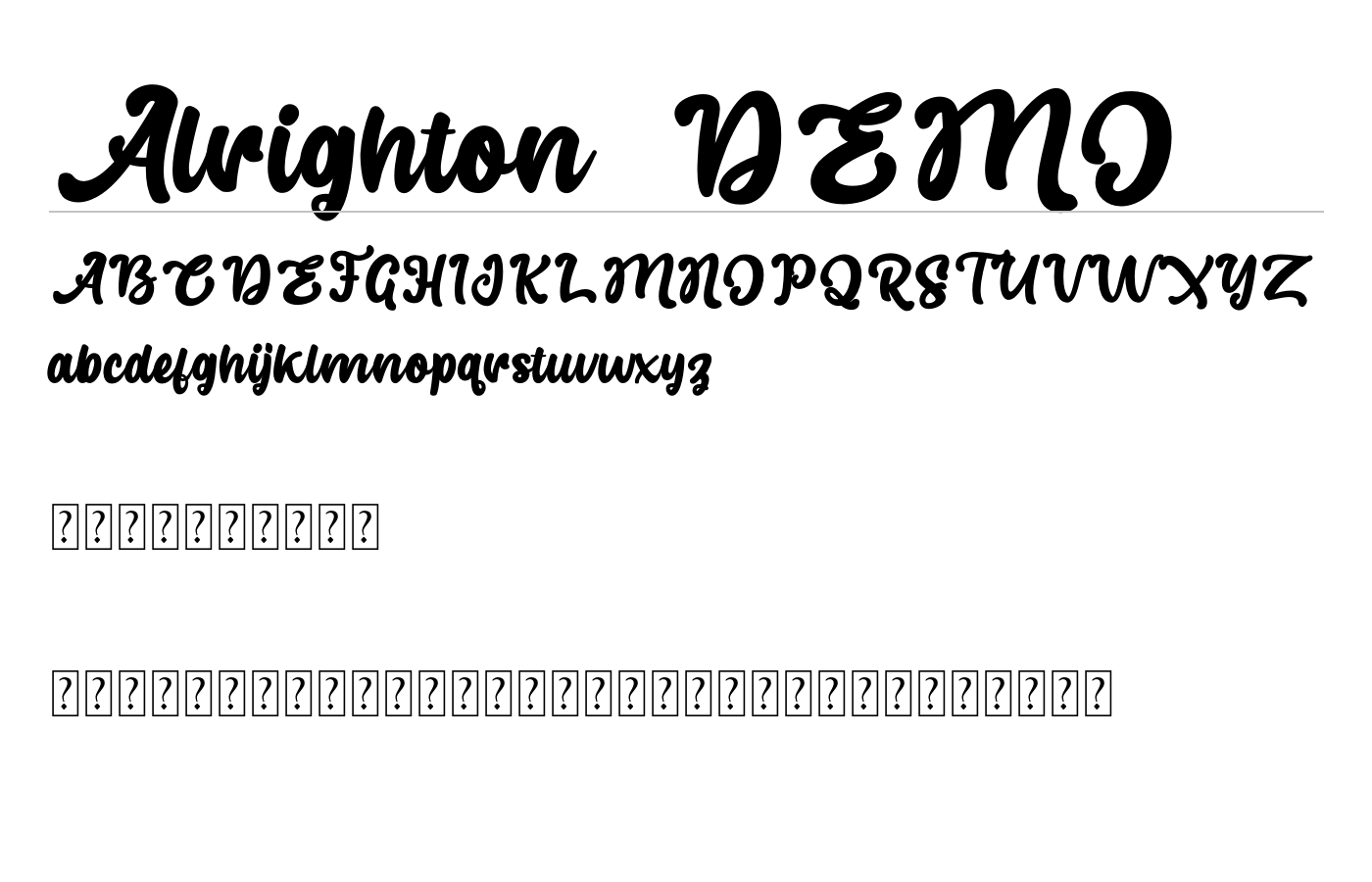
Alrighton DEMO is a bold and flowing script font with a friendly, hand-lettered feel. Its smooth, rounded strokes and moderately high x-height make it inviting and easy to read, while the playful, connected letterforms add a charming and approachable personality. This font works wonderfully for branding, invitations, and headlines where a personal, warm touch is desired.
Alrighton DEMO Font
About Alrighton DEMO Font
| Designer | Eko Nurcahyo |